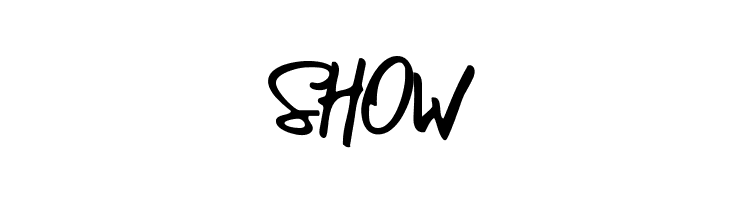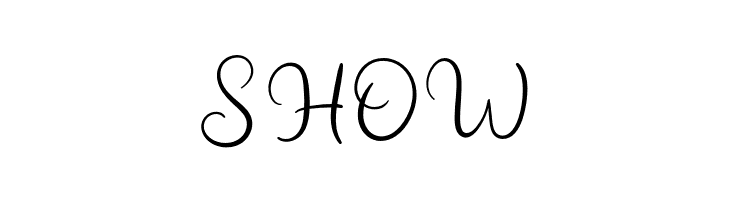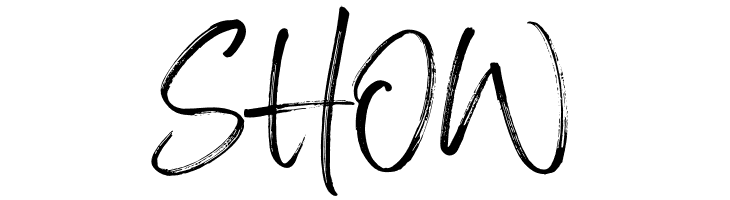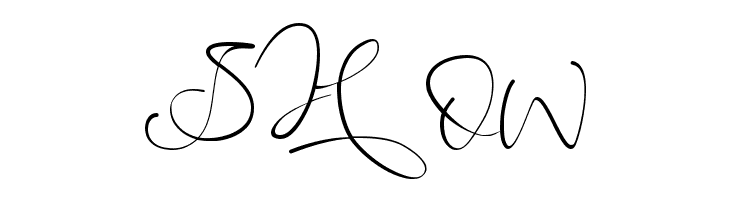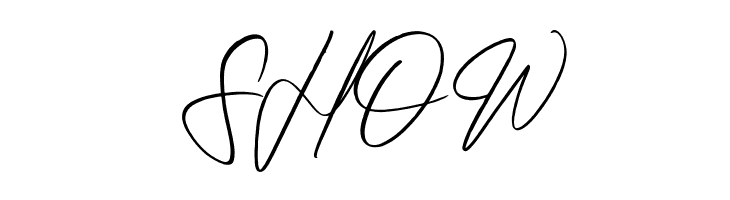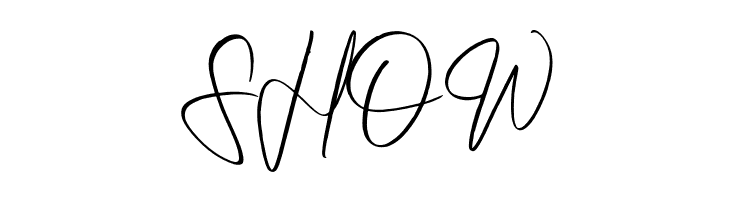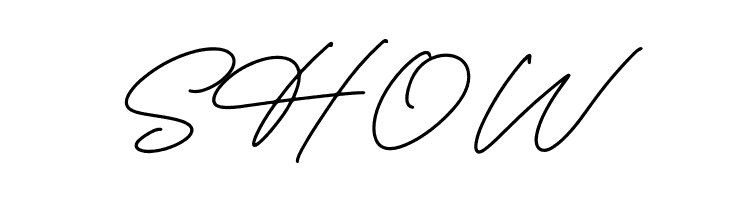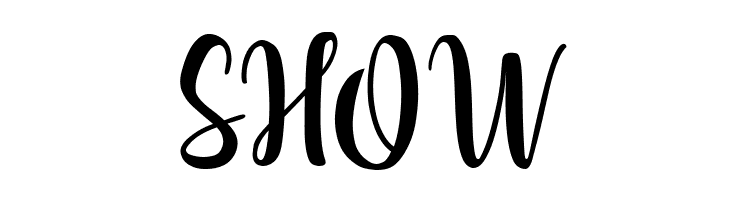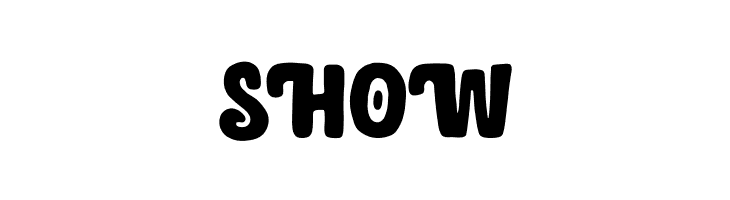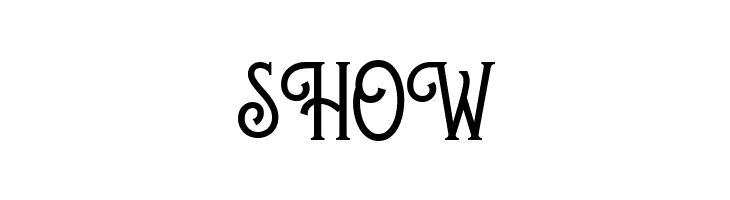
A lively handwritten font with fluid, connected strokes and a playful elegance.
A sophisticated and fluid script font with elegant, flowing lines.
A playful and elegant script font with smooth, flowing lines.
An elegant script font with intricate loops and modern calligraphic style.
A cursive, handwritten font with elegant curves and artistic flourishes.
A high-contrast serif font with elegant, modern curves and sharp edges.
A bold, expressive handwritten font with a modern and dynamic style.
A classic and elegant cursive script font with flowing letterforms.
A stylish, cursive script with a handwritten, signature feel.
A modern, elegant script font with a handwritten style and dynamic strokes.
A flowing, cursive font with elegant, interconnected letters and a handwritten style.
A decorative script font with elegant swirls and flourishes.
A flowing, cursive script with elegant, handwritten characteristics.
A dynamic, cursive script font with a flowing, handwritten style.
A flowing, cursive script font with elegant loops and a modern appeal.
A bold, playful font with exaggerated curves and a cartoonish style.
A dynamic, handwritten-style font with expressive strokes.
A fragmented, textured font with a dynamic and edgy appearance.
Gothic-style font with bold, angular strokes.
Handwritten cursive script with smooth, connected strokes.
A bold, expressive handwritten font with dynamic strokes and a brush-like texture.
A playful, handwritten font with dynamic strokes and a casual style.
A bold, handwritten font with a lively and dynamic style.
A bold, decorative font with a playful, chunky style.
A bold, playful font with rounded edges and a whimsical flair.
A dynamic brush script font with fluid, expressive strokes and artistic flair.